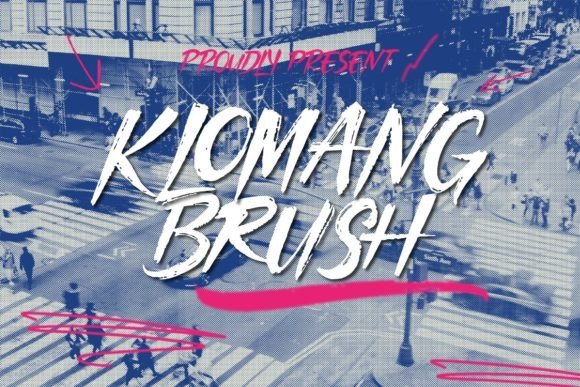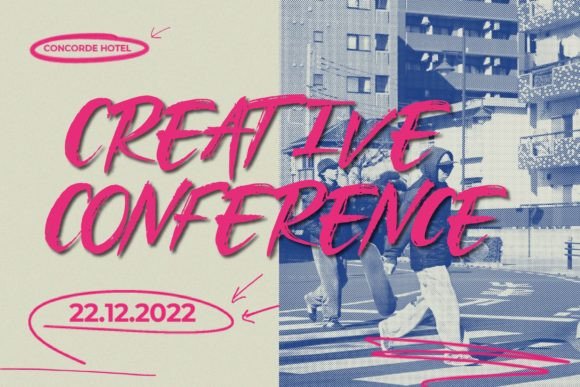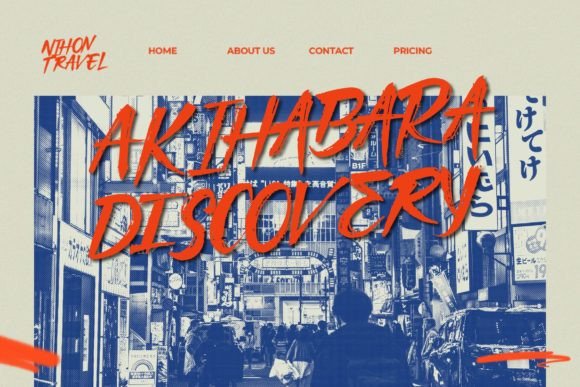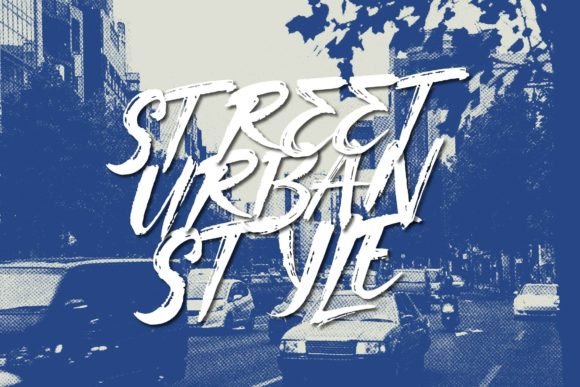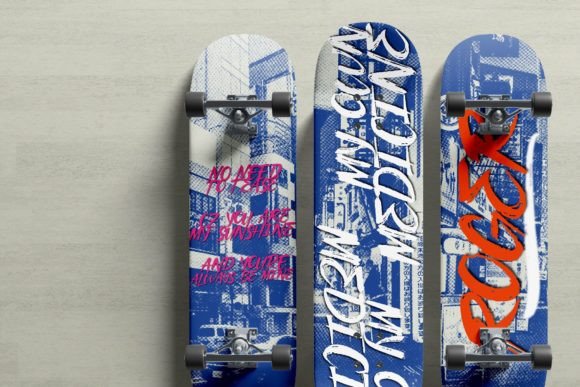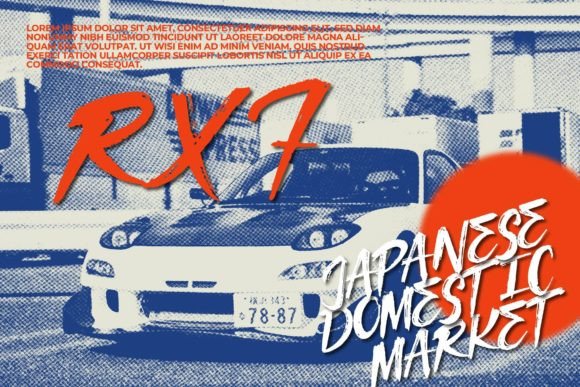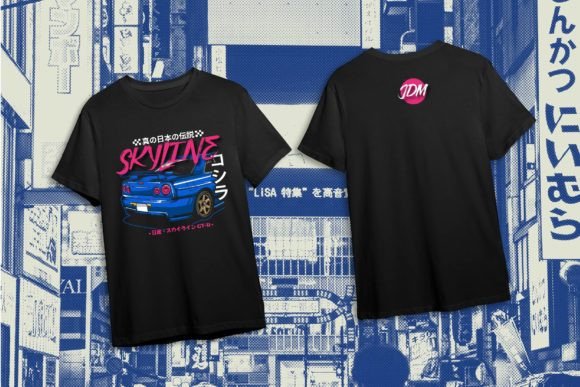
The Perfect Brush Stroke for Your Next Creative Project
Have you ever been in the middle of a design project, staring at a blank canvas, and suddenly, a spark of creativity hits you? The ideas start flowing, and you envision the perfect handwritten font that brings your project to life. For designers, this moment is pure magic, and it’s exactly what the Klomang Brush Font is designed to evoke.
This cool and trendy handwritten font is more than just a stylish addition to your project – it’s a game-changer. Suitable for a wide range of applications, from logos and branding projects to homeware designs and product packaging, the Klomang Brush Font is the perfect tool for designers looking to add a touch of elegance and sophistication to their work.
Klomang Brush Font Key Features
- Character Set: This font includes a wide range of characters, including uppercase and lowercase letters, numbers, punctuation, and special characters.
- Size and Resolution: Klomang Brush Font is designed to be highly scalable and can be used at various resolutions, including low-resolution displays and high-resolution printing.
- Unique Characteristics: The font’s unique brush-like strokes and subtle texture give it a hand-drawn feel, making it perfect for creative and artistic applications.
- Font Style: Klomang Brush Font is a script font, ideal for use in titles, headings, and other display text where a more expressive and personal feel is desired.
Klomang Brush Font Review
As a designer, I’m always on the lookout for unique and creative fonts to add some personality to my projects. The Klomang Brush Font caught my eye with its hand-drawn aesthetic and playful feel. Here’s my honest review:
- ✨ Unique brush-style strokes that add a human touch to digital designs
- ✨ Great for creating a fun, casual vibe in headings and titles
However, there are some limitations:
- ⚠️ Not ideal for body text, as the letter spacing can become cluttered and difficult to read
- ⚠️ Limited character set, which may not be suitable for extended use in certain projects
- ⚠️ May not be suitable for formal or professional designs, as it can come across as too playful
Overall, I think the Klomang Brush Font is a great addition to any designer’s toolkit, but it’s essential to use it judiciously. With its unique charm and playful feel, it’s perfect for adding a touch of whimsy to your designs. Just be mindful of its limitations and use it in the right context.
Klomang Brush Font Practical Application Guide
Tips: To get the most out of Klomang Brush Font in Canva, use it for creative titles, headings, and quotes. You can also adjust the font size and color to match your design.
Tips: To get the most out of Klomang Brush Font in Adobe Photoshop or Illustrator, use it for custom typography, logos, and graphics. You can also experiment with font sizes, colors, and layer styles.
Tips: To get the most out of Klomang Brush Font in PowerPoint or Word, use it for titles, headings, and body text. You can also adjust the font size and color to match your design.
Klomang Brush Font is ideal for:
- Typography-based graphics
- Custom invitations and stationery Alternatives to Klomang Brush Font for Designers
- Set the font as the primary text style for the invitation’s main message.
- Use a watercolor effect to create a soft, blended look.
- Combine with hand-drawn illustrations or watercolor elements to add visual interest.
- Pair Klomang Brush Font with a clean and simple sans-serif font for contrast.
- Use watercolor textures and patterns to create a cohesive look.
- Experiment with different brush sizes and styles to achieve unique effects.
- Set the font as the primary text style for the menu’s main dishes and descriptions.
Project 1: Watercolor Invitation Design
Design a beautiful and unique invitation for a special occasion using the Klomang Brush Font. This project combines the organic feel of watercolor with the whimsical touch of hand-painted lettering.
To use Klomang Brush Font in this project:
Project 2: Hand-Drawn Menu Design
Create a charming and inviting menu for a restaurant or cafe using the Klomang Brush Font. This project showcases the font’s ability to evoke a sense of hand-drawn elegance.
To use Klomang Brush Font in this project: